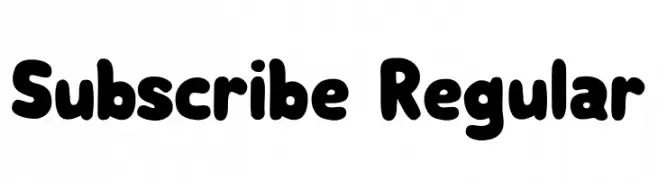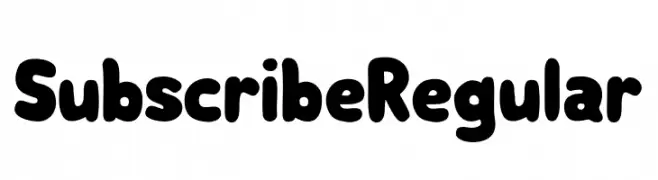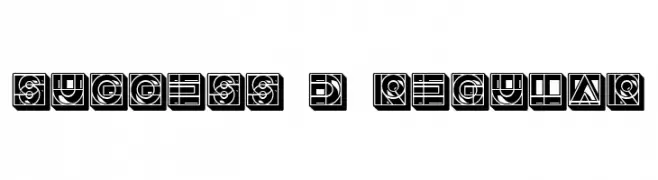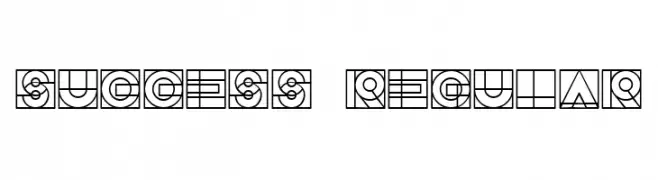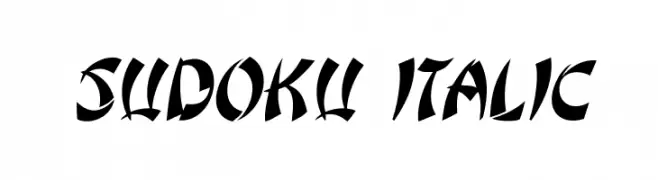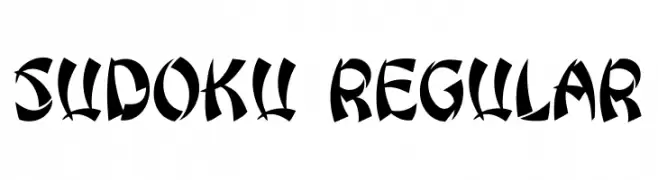
• Subscribe Italic
A bold, playful font with rounded edges and a slight italic slant.
• Subscribe Italic
A playful, bold, and rounded font with a slight italic slant.
• Subscribe Regular
A playful, bold font with rounded edges and a cartoonish style.
• Subscribe Regular
A playful, bold font with rounded, thick letterforms.
• Subscribe Shadow Italic
A bold, playful font with a shadow effect and rounded edges.
• Subscribe Shadow Regular
A bold, playful font with a shadow effect for a three-dimensional look.
• Success 3D Regular
A bold, geometric 3D font with intricate line patterns.
• Success Regular
A geometric and decorative font with a modern, architectural style.
• Sudoku Italic
A bold, italic font with sharp, angular edges and a dynamic, modern style.
• Sudoku Regular
A bold, angular font with high contrast and dynamic style.